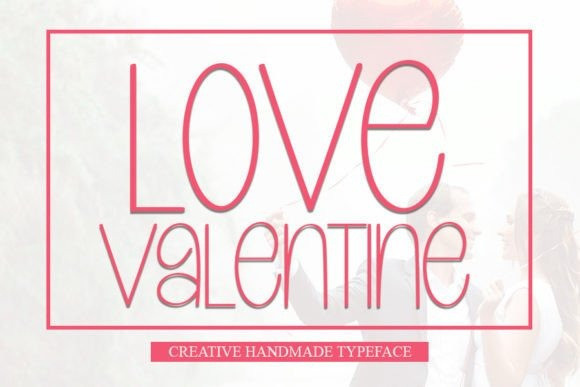
Love Valentine Font
Love Valentine Font is a creative handmade typeface. You can use this lovely font for Valentine’s day cards, wedding invitations, fashion, t-shirt designs, covers, books, albums, and more.